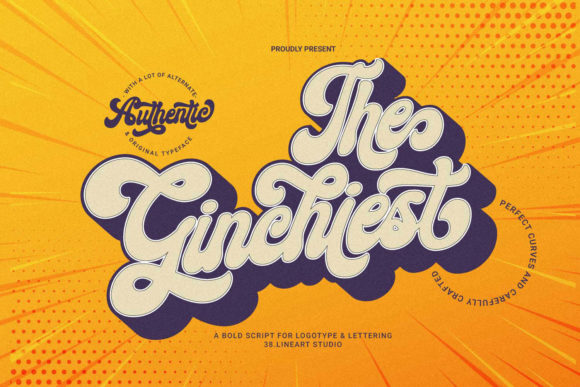
Venture into a realm of groovy typography with The Ginchiest, a font family that pays homage to the swinging 60s and 70s. Crafted by the talented 38.lineart, this uniquely expressive script font exudes a bold and captivating charm that's sure to make your designs stand out from the crowd.
Immerse yourself in the Ginchiest's retro flair, reminiscent of an era known for its vibrant colors, iconic fashion, and soulful music. Let your creativity flow as you harness the font's playful energy to inject a touch of nostalgia into your branding, social media posts, or personal projects.
With its meticulously hand-drawn characters, The Ginchiest offers a level of detail and authenticity that will leave your audience captivated. Each letter dances across the page, embodying the free-spirited nature of the era that inspired it. The font's organic flow and natural imperfections add a captivating layer of depth and personality to your designs.
Whether you're crafting eye-catching posters, designing retro-themed logos, or simply adding a touch of groovy charm to your social media posts, The Ginchiest delivers an undeniable impact. Its versatility extends beyond its retro roots, making it a versatile choice for a wide range of projects. Unleash your creativity and explore the endless possibilities that await.
Step into the groovy world of The Ginchiest font and let your imagination take flight. Its bold personality and playful charm will transform your designs into true works of art. Embrace the retro vibes and make a statement that resonates with audiences everywhere. Download The Ginchiest today and let the good times roll!